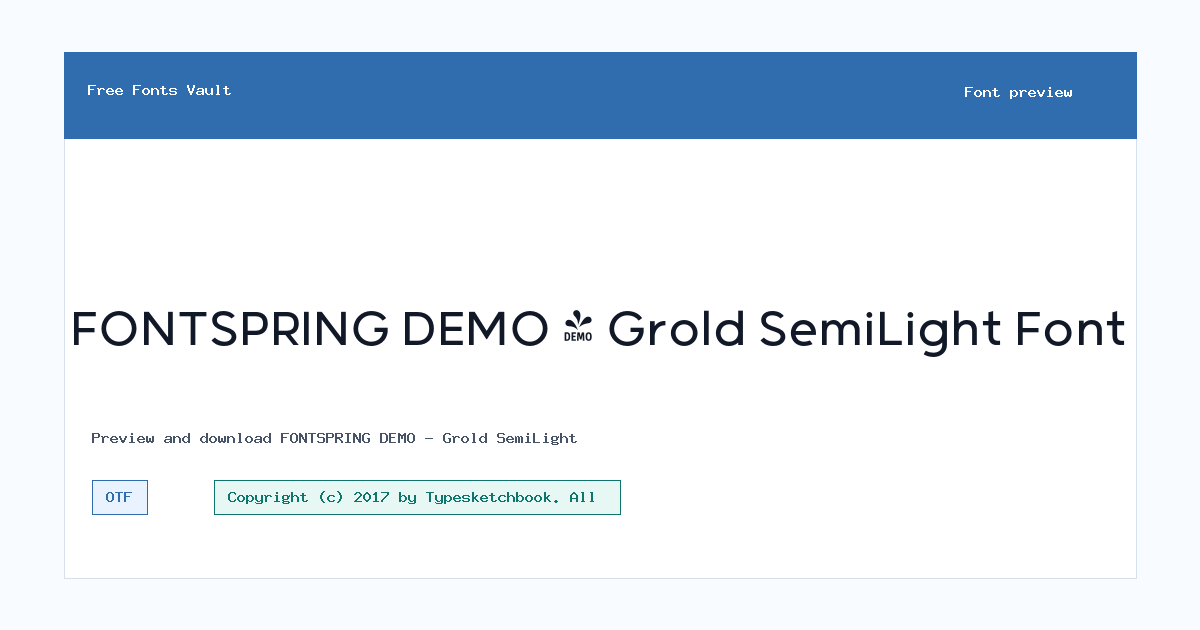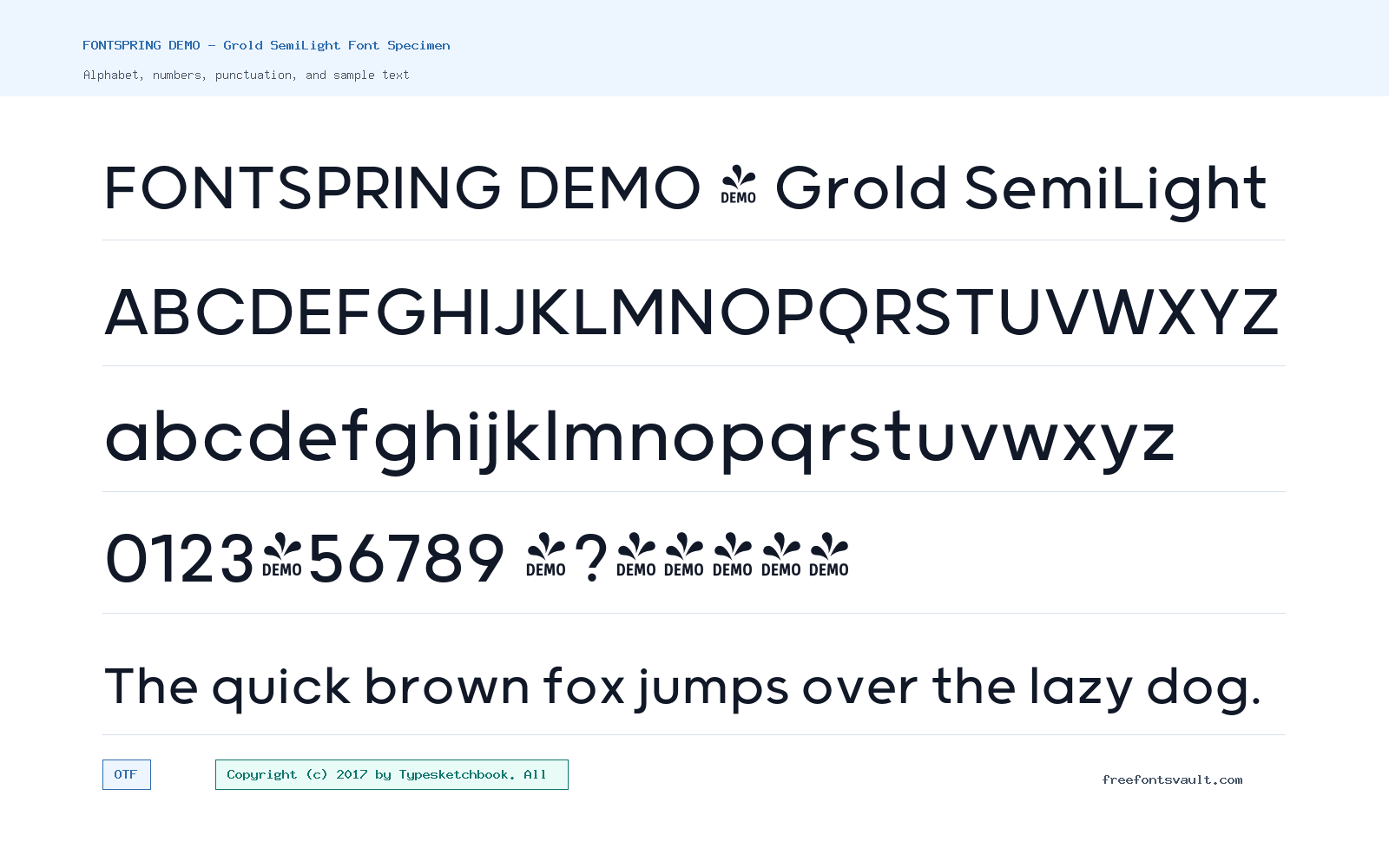
FONTSPRING DEMO - Grold SemiLight
- Designer Chatnarong Jingsuphatada
- Foundry Typesketchbook
FONTSPRING DEMO – Grold SemiLight font.
Grold SemiLight is a light-weight OTF font file for visitors who want to test a cleaner, softer text style before downloading.
About Grold SemiLight Font
The available file is Grold SemiLight in OpenType format, with a normal style and 300 font weight. That makes it a lighter cut rather than a bold display face. In the preview box, try both short words and longer lines so you can see how the thinner weight handles spacing, contrast, and readability at different sizes.
- Normal style with a light 300 weight
- Testing clean headings, navigation text, and short labels in a lighter weight
- Previewing how a SemiLight style works in mockups before choosing a licensed font
The font metadata names Chatnarong Jingsuphatada as the designer and Typesketchbook as the foundry.
Test Grold SemiLight at the exact size you plan to use. Light weights can look elegant in large headings, but they may lose clarity in very small text, low-contrast colors, or busy backgrounds. Because SemiLight weights can look refined but delicate, check the font on the actual background color you plan to use. Thin strokes can disappear on low-contrast layouts, compressed images, or small mobile screens. It is usually safer to reserve Grold SemiLight for spacious headings, calm labels, editorial-style titles, and clean brand mockups. For longer text, compare it with a regular or medium weight from the same family if you have one, then keep line length moderate so the lighter forms remain easy to scan. Also test exported images, not only browser previews, because thin strokes can soften after compression or resizing.
What weight is Grold SemiLight?
The listed font weight is 300, which is a light or semilight style.
Who designed Grold SemiLight?
The metadata names Chatnarong Jingsuphatada as the designer.